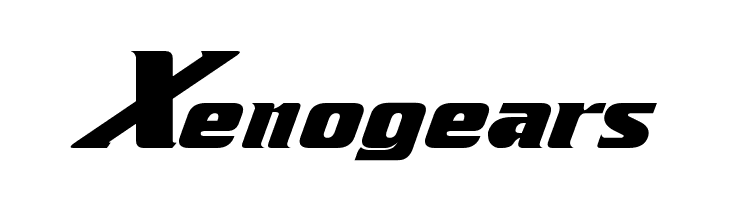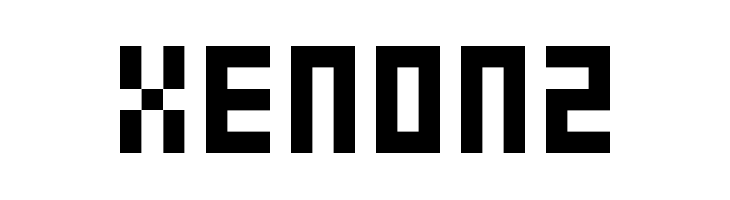
( Nicolas Vincent-Vivian - www.themrtutofacile.wix.com/themrtutofacile )
A futuristic, geometric font with blocky, angular letterforms.
( ATRAX - antraxja-fonts.iweb.pl/en/ )
A futuristic, geometric font with rounded edges and consistent stroke width.
A bold, decorative font with a three-dimensional, textured appearance.
( Splintered - www.splintered.co.uk )
A bold, geometric font with a modern, digital aesthetic.
( Joiro Hatagaya )
A modern, ultra-condensed font with elongated vertical lines and narrow spacing.
( Fonts by Vic Fieger )
A bold, textured font with a rustic, hand-crafted appearance.
( Fonts by www.vicfieger.com )
A bold, textured font with a hand-drawn, artistic style.